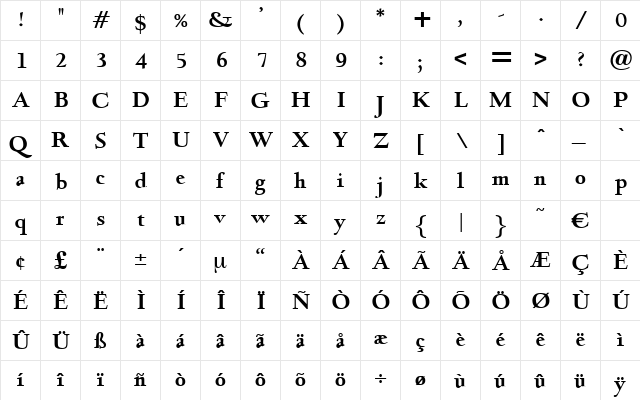
ChampagneBold Regular
Design Context for ChampagneBold Typeface
ChampagneBold offers clean, dependable letterforms without strong stylistic allegiance, making it a practical choice for designers who need flexibility. The heavy weight commands attention and anchors typographic hierarchies.